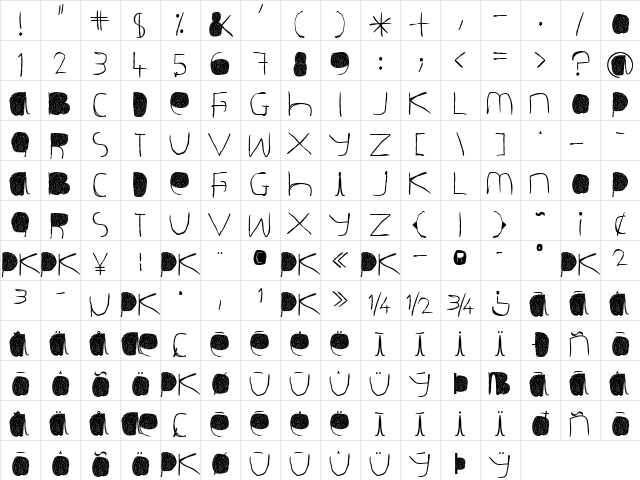
Deluge Regular
Design Context for Deluge Typeface
Deluge is a composed and adaptable typeface that performs quietly and consistently across a wide range of design contexts.